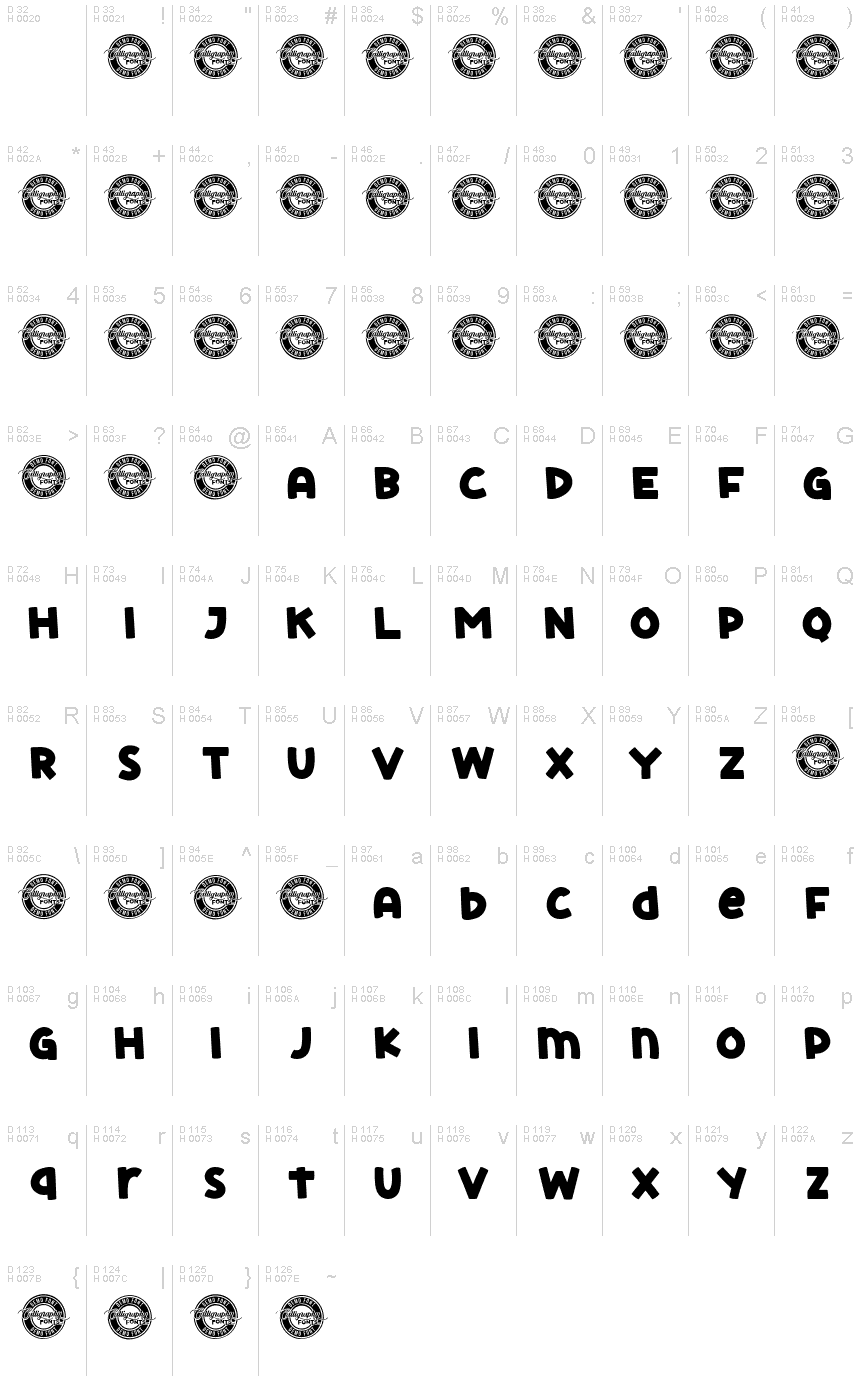
Matteo Karson Demo
Meet Matteo Karson, the bold and captivating display font from Calligraphy Fonts.
With its playful and lively cartoon style, Matteo Karson is perfect for children's book covers, greeting cards, and party invitations. Its bold weight adds an extra touch of excitement to your designs, making it ideal for branding projects that aim to stand out from the crowd. Let Matteo Karson bring a burst of fun and creativity to your next project!